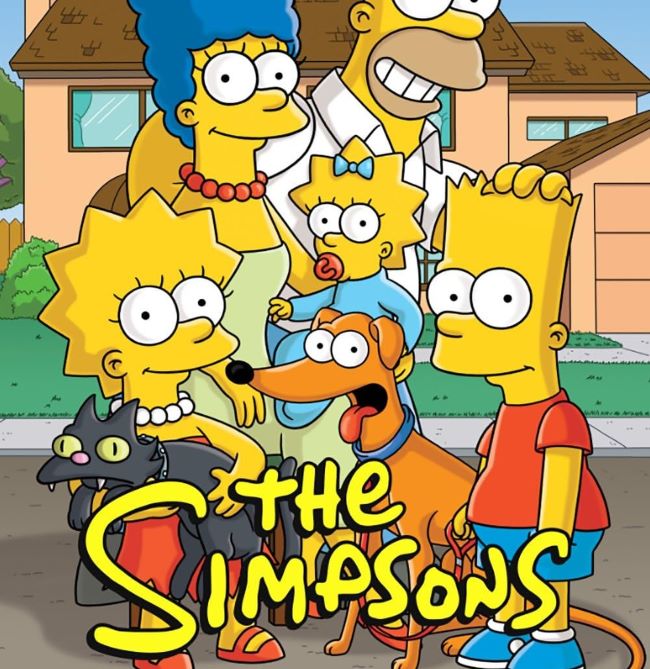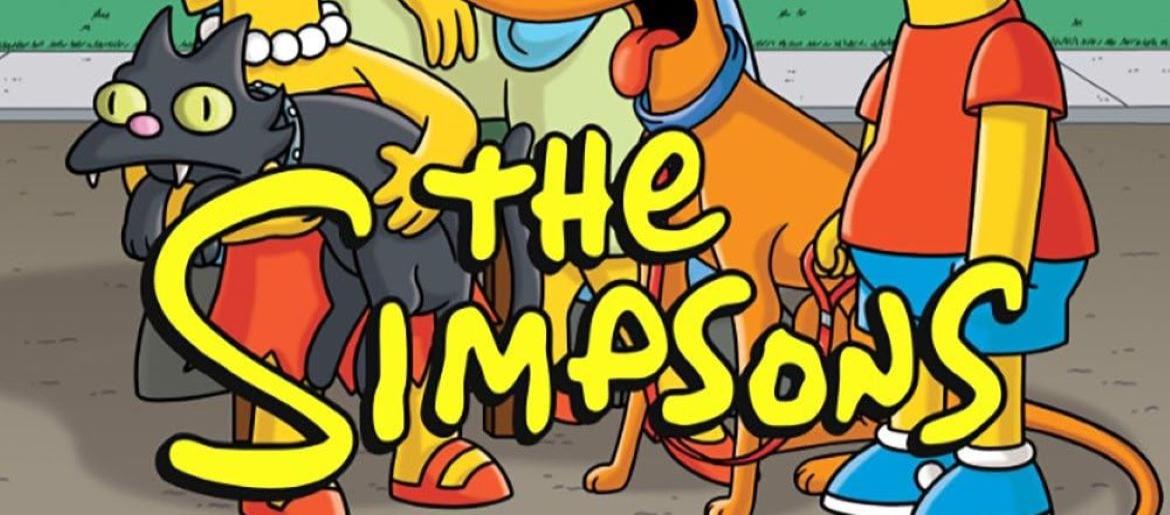
The Simpsons Font
The Simpsons Font is one of the most iconic and instantly recognizable typefaces in television history. Based on the playful, hand-drawn lettering style designed by Sharkshock, this font perfectly captures the quirky, irreverent spirit of the long-running animated series. With its bold, rounded characters and intentionally uneven lines, it embraces the charm of imperfection—mirroring the show’s humor and its warm, organic animation style.
About The Simpsons
The Simpsons, created by Matt Groening, premiered in 1989 and quickly became a defining piece of American pop culture. Featuring the voices of Dan Castellaneta, Julie Kavner, Nancy Cartwright, Yeardley Smith, Hank Azaria, and Harry Shearer, the series follows the daily misadventures of the Simpson family in the town of Springfield. Known for its satire of modern society, politics, and pop culture, the show has become one of the longest-running scripted TV series of all time, earning countless awards and influencing generations of animated comedy.